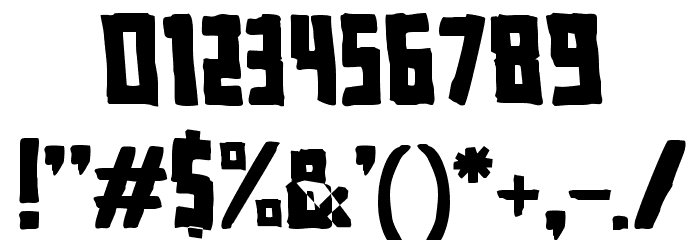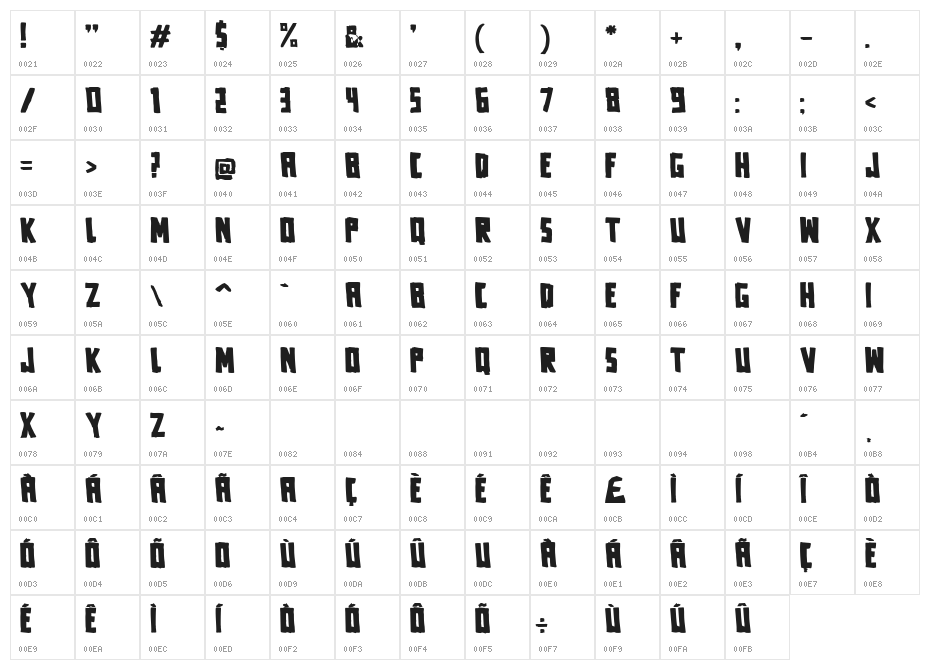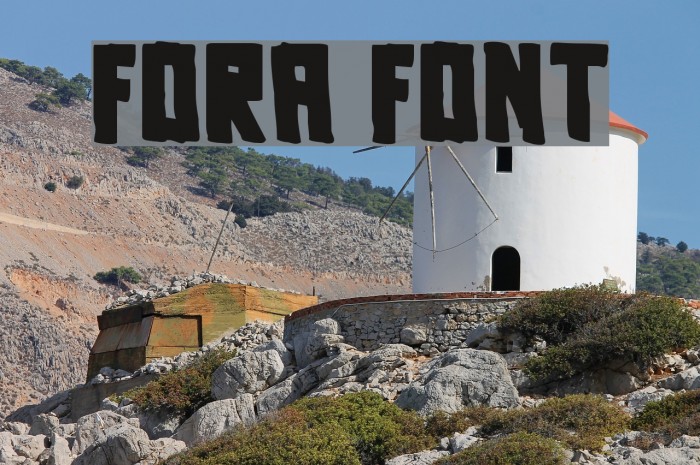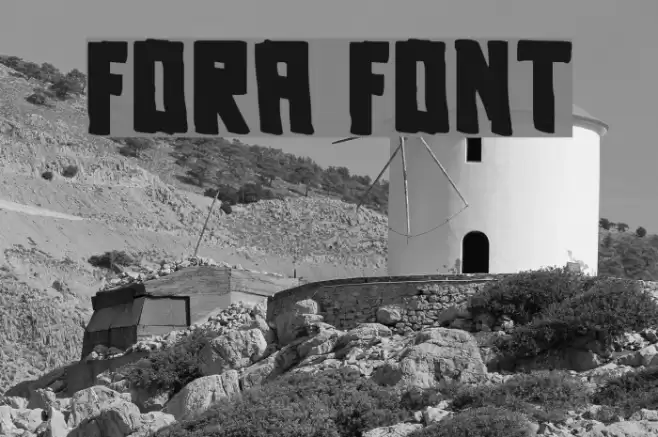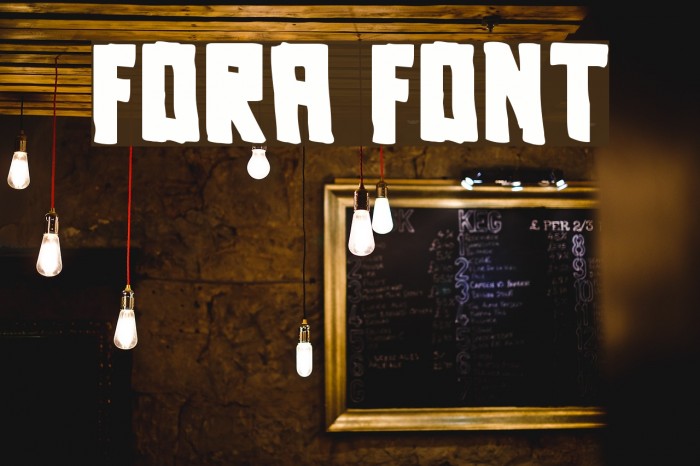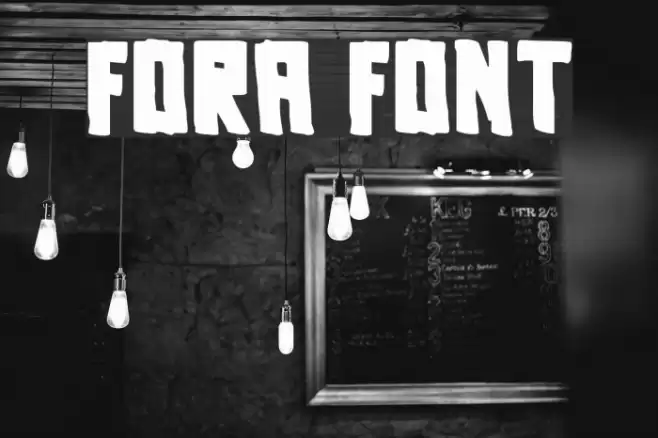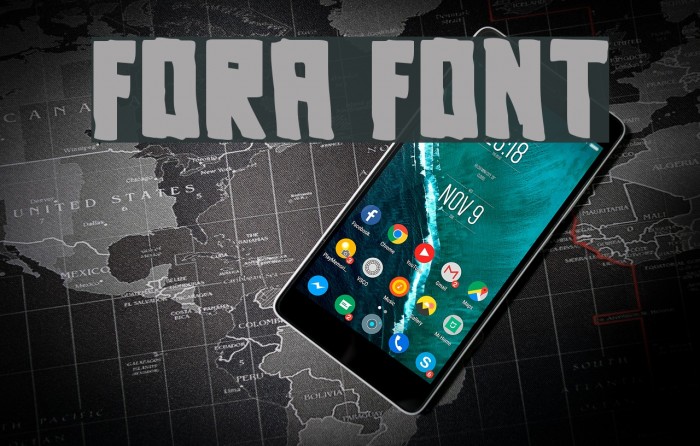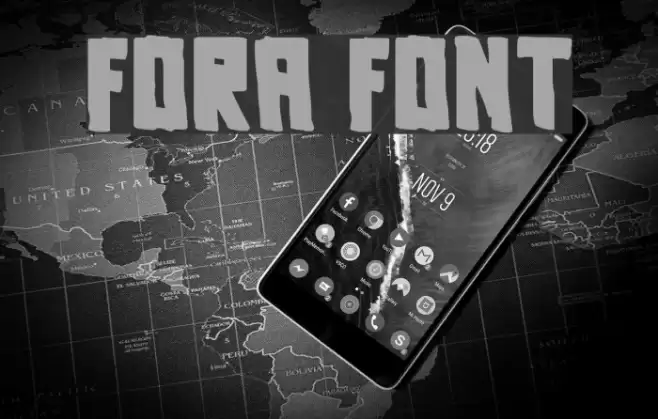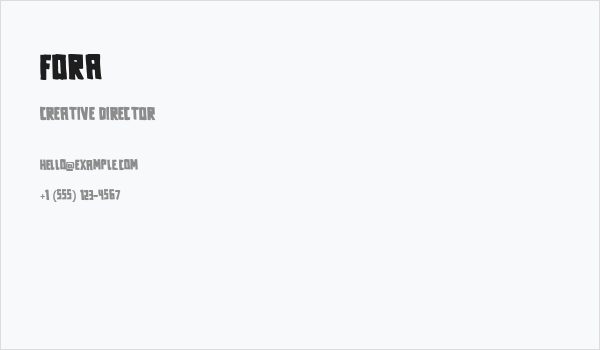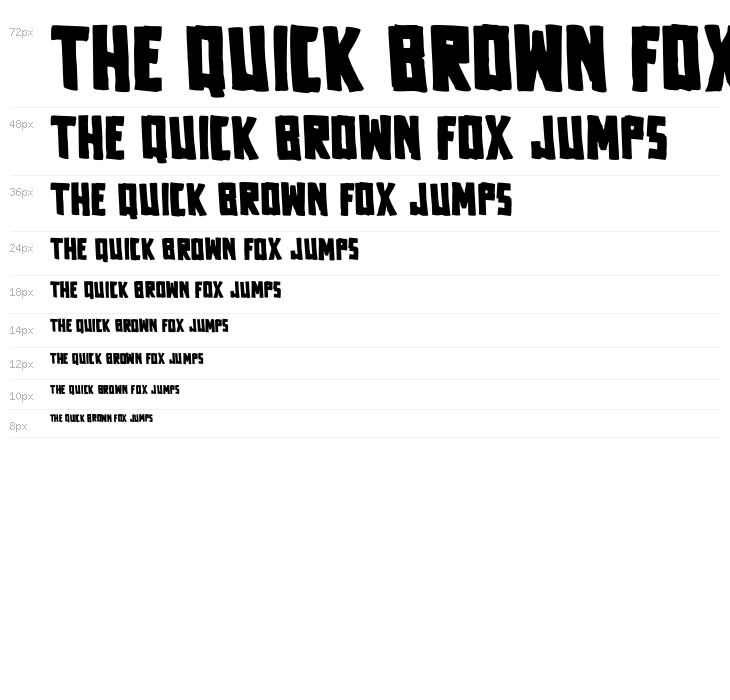
Fora Font
Fora Description
This font features a bold and rugged design with a distinct hand-drawn appearance. The characters are thick and uneven, giving them a raw and organic feel. The uppercase letters are prominent and assertive, while the lowercase letters maintain the same boldness with a slightly more compact form. Numbers and special characters follow the same stylistic approach, ensuring consistency across all elements. The font's unique style makes it stand out, ideal for projects that require a strong visual impact. Its uneven edges and irregular shapes contribute to a dynamic and energetic aesthetic, perfect for creative and unconventional designs.
| Proposed Projects | Ideal for posters, album covers, branding, and any project needing a bold and creative touch. |